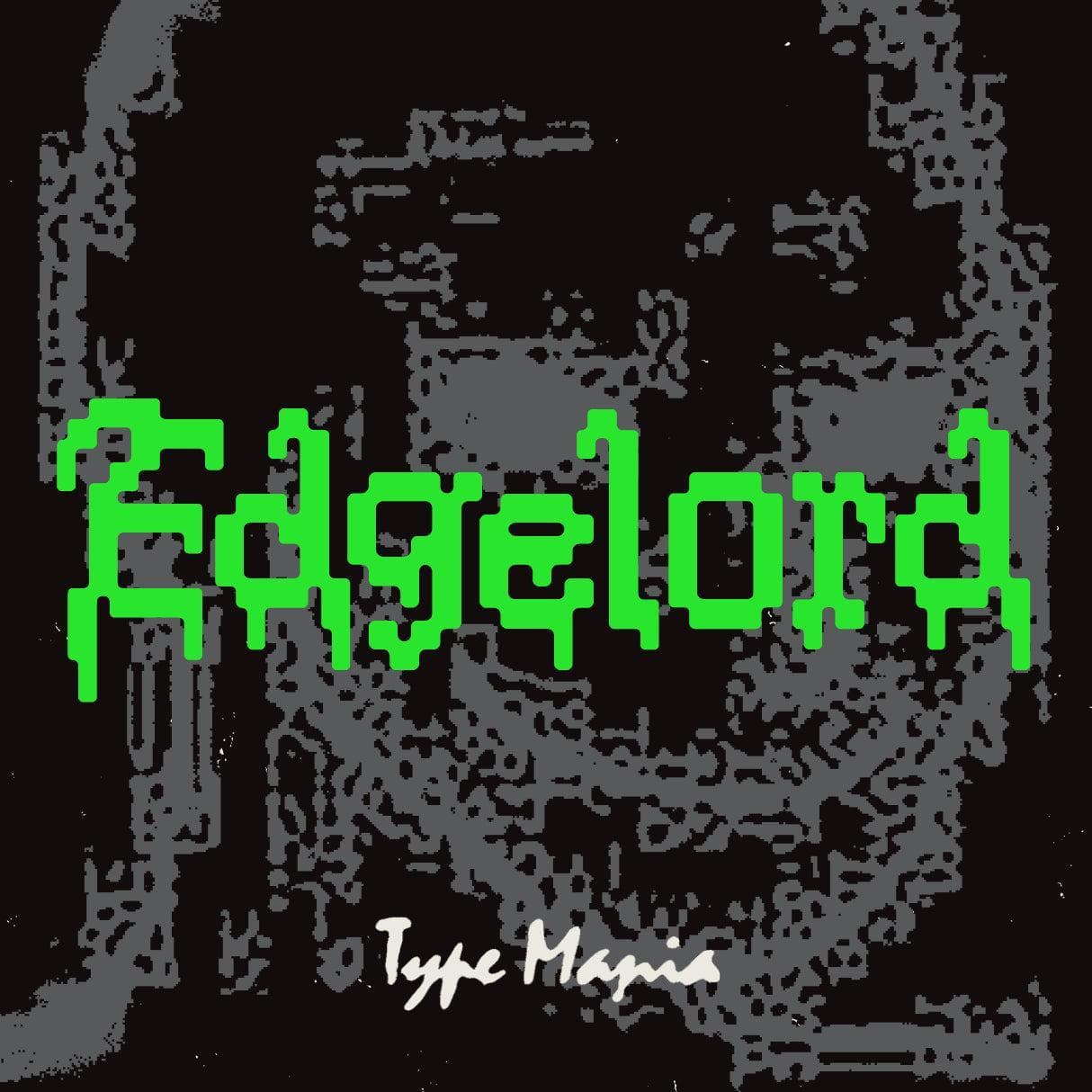
<p><strong>Edgelord TM</strong> blends medieval typography with 8-bit aesthetics, creating a typeface that stands out. Good for branding, editorial, flyer for that lo-fi house party at yo mama's basement... Give it a try. ⚔️</p> <p><strong>Zip includes</strong></p> <ul> <li>OTF file</li> <li>TTF file</li> <li>WOFF2 file</li> </ul> <p><strong>Languages</strong></p> <ul> <li>Basic Latin</li> <li>Western European</li> <li>Euro</li> <li>Central European</li> <li>Pan African Latin</li> </ul> <p><em>Graphic Design is Easy (with Type Mania)®</em></p>